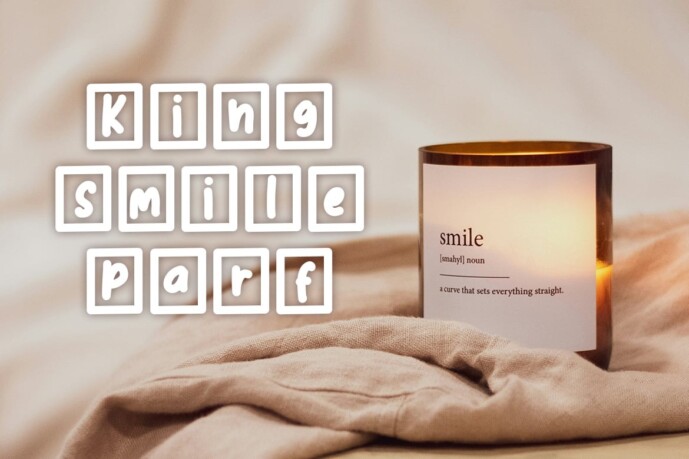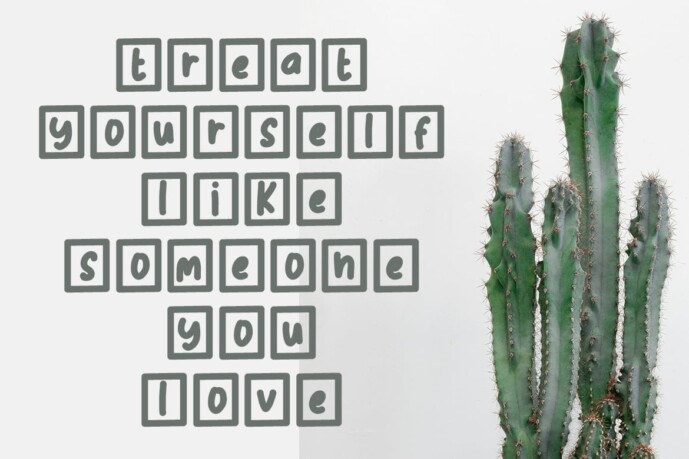
Daily Display Font
Daily Display Font, this font will be perfect for your fun projects like kids party, cute quotes or any other fun projects related to fun.